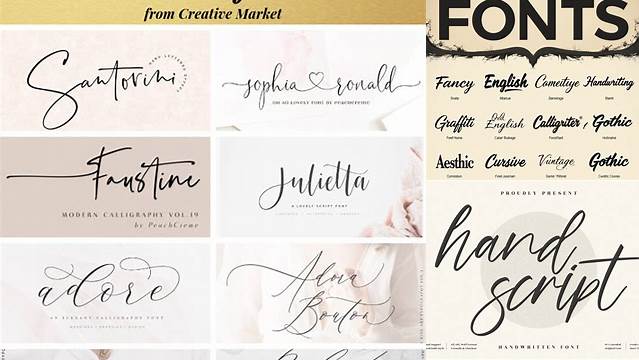
Free Hand-Drawn Script Fonts: Download Now!
Hey guys! Are you looking to add a personal touch to your designs? Hand-drawn script fonts are the perfect way to inject some warmth and character into your projects. Whether you're working on invitations, logos, websites, or social media graphics, these fonts can give your work that unique, handcrafted feel. In this article, we'll dive into the world of hand-drawn script fonts, explore what makes them so special, and provide you with a list of amazing free downloads to get you started. So, buckle up and let's get creative!
What Makes Hand-Drawn Script Fonts So Special?
Hand-drawn script fonts stand out from the crowd because they mimic the fluidity and imperfections of actual handwriting. Unlike more rigid and structured fonts, these scripts have a natural, organic feel that can convey a sense of authenticity and artistry. This makes them incredibly versatile for a wide range of applications. If you're trying to capture attention with your next project, consider using a hand-drawn font. Let's explore why these fonts have such a unique appeal.
The Personal Touch
One of the primary reasons hand-drawn script fonts are so beloved is their ability to add a personal touch. In a digital world, where everything can sometimes feel sterile and impersonal, a hand-drawn font can bridge that gap. These fonts evoke the feeling of a handwritten note or a custom piece of art, which can be incredibly powerful in connecting with your audience. Imagine receiving an invitation with a beautifully scripted font – it instantly feels more special and heartfelt than something printed in a standard typeface. That's the magic of hand-drawn fonts!
When you use a hand-drawn font, you're essentially adding a human element to your design. The slight variations in line thickness, the unique curves and swashes, and the overall imperfect nature of the font all contribute to this effect. It's these imperfections that make the font feel so authentic and relatable. For businesses, this can translate into a more approachable and trustworthy brand image. For personal projects, it can add a layer of sentimentality and charm that’s hard to replicate with other font styles.
Moreover, the personal touch of hand-drawn script fonts can help your message stand out. In a sea of perfectly aligned text and standard fonts, a handwritten style can catch the eye and draw the reader in. This is particularly useful in marketing and advertising, where you need to grab attention quickly and make a lasting impression. Whether it's a website header, a social media post, or a printed flyer, a hand-drawn font can help you communicate your message with personality and flair.
Versatility in Design
Another key advantage of hand-drawn script fonts is their versatility. They can be used in a wide array of design projects, from elegant wedding invitations to playful children's books. The key is to choose a font that matches the overall tone and style of your project. For example, a delicate and flowing script might be perfect for a wedding-related design, while a bolder, more whimsical script could be ideal for a children's brand or event.
The flexibility of hand-drawn script fonts extends to different design mediums as well. They work beautifully in print, online, and even in motion graphics. Whether you're designing a logo, creating social media content, or developing a website, a hand-drawn font can add a touch of artistry and sophistication. They also pair well with other font styles, allowing you to create interesting and dynamic typographic compositions.
Consider the use of hand-drawn script fonts in branding. A well-chosen script font can become a key element of your brand identity, helping you to convey your brand's personality and values. For instance, a handcrafted food brand might use a rustic, slightly imperfect script to highlight its artisanal nature. A fashion brand, on the other hand, might opt for a more elegant and refined script to convey a sense of luxury and style. The possibilities are endless, and the right font can make a significant impact on your brand's overall image.
Conveying Emotions and Moods
Hand-drawn script fonts have a unique ability to convey emotions and moods, making them a powerful tool for visual communication. The style of the script – whether it's light and airy, bold and confident, or quirky and playful – can significantly influence how your message is received. This makes it crucial to select a font that aligns with the intended emotional impact of your design. Think about the message you want to send and choose a font that helps you communicate that feeling effectively.
For designs that aim to evoke feelings of warmth, nostalgia, or intimacy, a softer, more flowing script is often the best choice. These fonts can create a sense of familiarity and connection, making them ideal for personal projects, heartfelt messages, and branding that emphasizes human connection. On the other hand, if you're aiming for a more energetic or dynamic feel, a bolder, more expressive script might be more appropriate. These fonts can add a sense of excitement and creativity to your design.
The emotional impact of hand-drawn script fonts also extends to their cultural associations. Certain script styles have strong links to particular time periods or artistic movements. For example, a flourished Spencerian script might evoke a sense of 19th-century elegance, while a brush script might bring to mind mid-century modern design. Understanding these associations can help you choose a font that not only looks good but also adds a layer of meaning and context to your project.
Where to Find Free Hand-Drawn Script Fonts
Now that you're convinced about the awesomeness of hand-drawn script fonts, let's talk about where you can find them for free! The internet is brimming with resources for designers, and there are plenty of websites offering high-quality fonts at no cost. However, it's essential to be mindful of licensing terms when downloading fonts. Make sure you're aware of whether a font is free for personal use, commercial use, or both. Here are some of the best places to find free hand-drawn script fonts:
Font Websites
Several websites specialize in offering free fonts, and they often have a great selection of hand-drawn script fonts. Some popular options include:
- DaFont: DaFont is a massive repository of fonts, with a wide range of styles and licenses. You can easily filter your search to find script fonts and then check the license details to ensure they meet your needs. They have many options, so you're bound to find a perfect font for your projects.
- FontSpace: Similar to DaFont, FontSpace offers a vast collection of free fonts, including many hand-drawn scripts. The site is user-friendly, and you can easily browse different categories and styles. FontSpace is great for exploring new and unique fonts.
- Google Fonts: Google Fonts is a fantastic resource for web fonts, and it includes several beautiful hand-drawn script options. What's great about Google Fonts is that they are all open-source and free to use for both personal and commercial projects. Plus, they are optimized for web use, making them a great choice for website design.
When browsing these websites, pay close attention to the license information. Many fonts are free for personal use but require a commercial license for business-related projects. Always double-check the terms to avoid any copyright issues.
Design Resource Websites
In addition to dedicated font websites, many design resource sites offer free fonts as part of their broader offerings. These sites often curate collections of fonts, graphics, and other design elements, making it easy to find everything you need in one place. Some excellent options include:
- Creative Market: Creative Market offers a mix of free and premium design resources. They often have weekly freebies, which can include stunning hand-drawn script fonts. Keep an eye on their free goods section to snag some amazing fonts without spending a dime. They are a good source of inspiration as well!
- Envato Elements: Envato Elements is a subscription-based service, but they often offer free files each month. These freebies can include high-quality fonts, so it's worth checking regularly. Envato Elements is a great resource for professional designers.
- Behance and Dribbble: While not font-specific websites, Behance and Dribbble are platforms where designers showcase their work. Sometimes, designers will offer free fonts as a way to promote their work. It's worth exploring these platforms to discover unique and lesser-known fonts.
These design resource websites are fantastic for discovering hidden gems and unique fonts that you might not find on the more mainstream font sites. Plus, you can often find other valuable design assets, such as graphics and templates, in the same place.
Font Foundries and Individual Designers
Another great way to find free hand-drawn script fonts is to check the websites of font foundries and individual designers. Many foundries offer free demo versions of their fonts, which can be a great way to try out a font before committing to a purchase. Individual designers often release free fonts as a way to build their portfolio and gain exposure.
To find font foundries and designers, you can use websites like MyFonts or Typekit to browse different typefaces and then visit the foundry or designer's website. You might also find designers sharing their free fonts on social media platforms like Twitter and Instagram. Following designers and foundries can keep you in the loop about new releases and freebies.
This approach can lead you to discover some truly unique and high-quality fonts. You'll often find that these fonts have been crafted with a great deal of care and attention to detail. Plus, you'll be supporting the designers directly, which is always a good thing!
Tips for Using Hand-Drawn Script Fonts Effectively
Okay, you've downloaded some awesome hand-drawn script fonts – now what? Using these fonts effectively is key to achieving the desired impact in your designs. Here are some tips to help you make the most of your new fonts:
Readability is Key
While hand-drawn script fonts are beautiful, readability should always be a top priority. Some scripts can be quite elaborate and difficult to read, especially in smaller sizes or longer blocks of text. Before you use a script font, make sure it's legible in the context of your design. If your audience can't read your message, the font, no matter how beautiful, isn't serving its purpose.
Consider the size at which you'll be using the font. A script that looks stunning in a large headline might become a blurry mess when used in body text. If you need a script font for smaller text, choose one that's relatively clean and simple. Avoid overly ornate scripts with lots of flourishes and swashes, as these can become difficult to decipher at smaller sizes.
Also, think about the contrast between the font and the background. A light script on a light background or a dark script on a dark background can be challenging to read. Make sure there's enough contrast to ensure the text stands out. Experiment with different colors and backgrounds to find the best combination.
Pair Wisely
Hand-drawn script fonts often pair best with simpler, more neutral fonts. This contrast can create a visually appealing and balanced design. Think of the script font as the star of the show and the other fonts as supporting actors. You want the script to shine without being overshadowed by competing fonts.
Sans-serif fonts like Helvetica, Arial, or Open Sans often work well with scripts. These fonts have a clean, modern look that complements the organic feel of a script. Serif fonts like Times New Roman or Georgia can also pair nicely, but it's important to choose a serif font that doesn't clash with the script's style. Avoid pairing scripts with other overly decorative fonts, as this can create a cluttered and confusing design.
When pairing fonts, consider the hierarchy of your text. Use the script font for headings or emphasized words and the simpler font for body text. This helps to guide the reader's eye and create a clear visual structure. Experiment with different font combinations to find the perfect balance for your design.
Use Sparingly
Hand-drawn script fonts are best used sparingly. Overusing them can diminish their impact and make your design look cluttered. Think of script fonts as an accent – a little goes a long way. Use them to highlight key words or phrases, add a personal touch to a heading, or create a focal point in your design. Avoid using script fonts for entire paragraphs or long blocks of text, as this can make your design difficult to read.
When incorporating a script font, think about the overall composition of your design. Make sure the script font complements the other elements, such as images and graphics. Avoid using too many different fonts in one design, as this can make it look chaotic. Stick to a maximum of two or three fonts to maintain a cohesive and professional look.
Using hand-drawn script fonts sparingly allows their unique characteristics to stand out. They're a fantastic way to add personality and flair to your designs, but restraint is key to achieving the best results. A well-placed script font can elevate your design, while overuse can detract from it.
So, there you have it! Hand-drawn script fonts are an amazing tool for adding a personal and artistic touch to your design projects. They’re versatile, emotional, and can make your work stand out. With the wealth of free resources available online, there's no reason not to experiment with these beautiful fonts. Just remember to pay attention to licensing, prioritize readability, and use them wisely. Now, go forth and create something amazing with your newfound font knowledge!